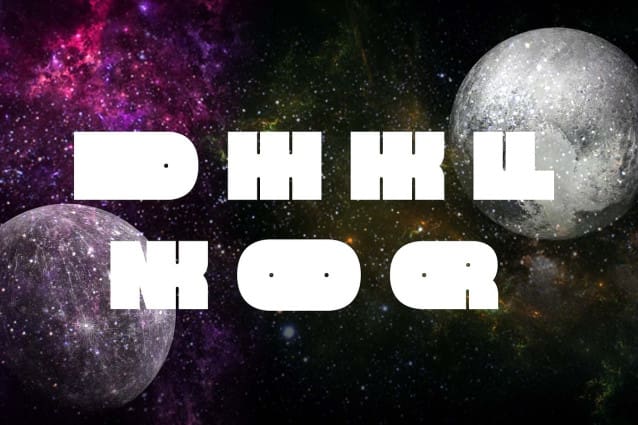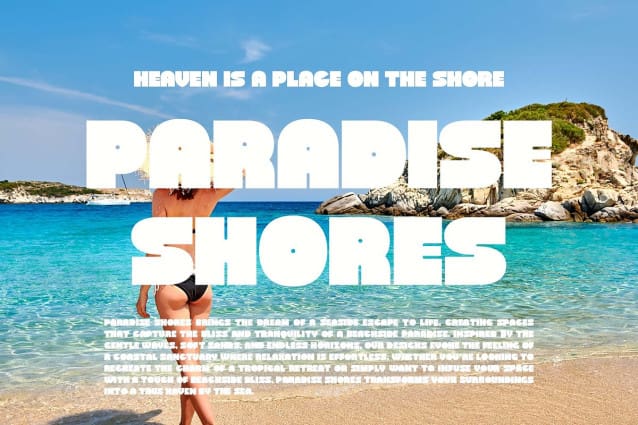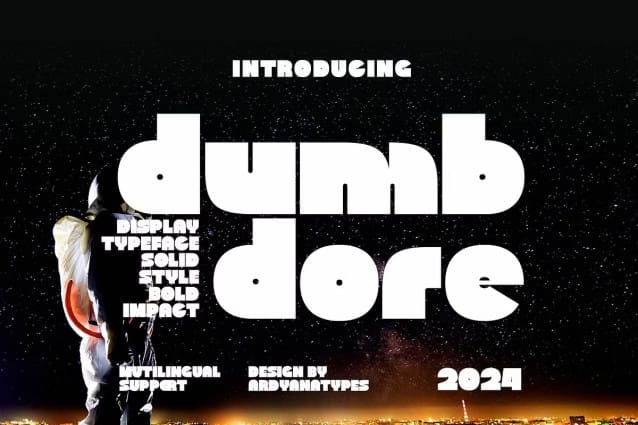
Dumbdore Font
Dumbdore Font is a meticulously crafted Display Typeface with a bubble style that brings a modern and captivating touch to all your design projects. Inspired by contemporary fonts, Dumbdore features rich OpenType capabilities, allowing for creative typographic experimentation. Its versatile form adapts effortlessly to various design needs, whether it’s posters, movie titles, book covers, branding materials, or other large-scale projects. With extensive language support, this font is designed for global use, making it an ideal choice for designers seeking a bold and dynamic presence in their work. Elevate your designs with the unique and memorable charm of Dumbdore.